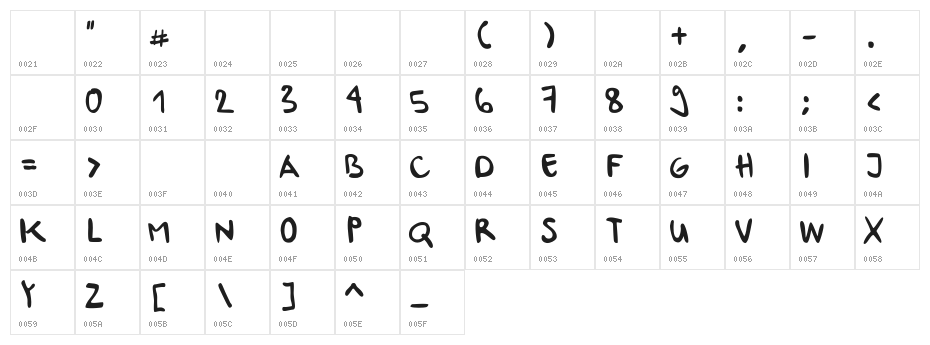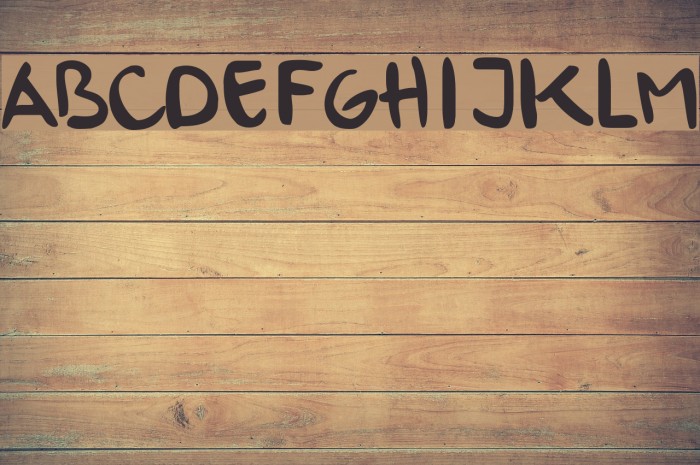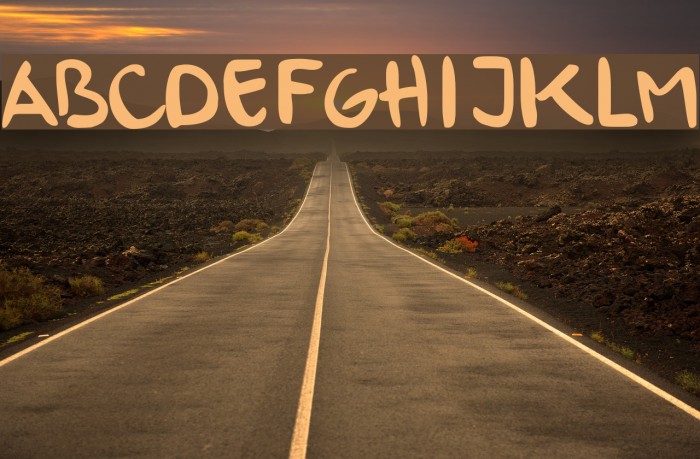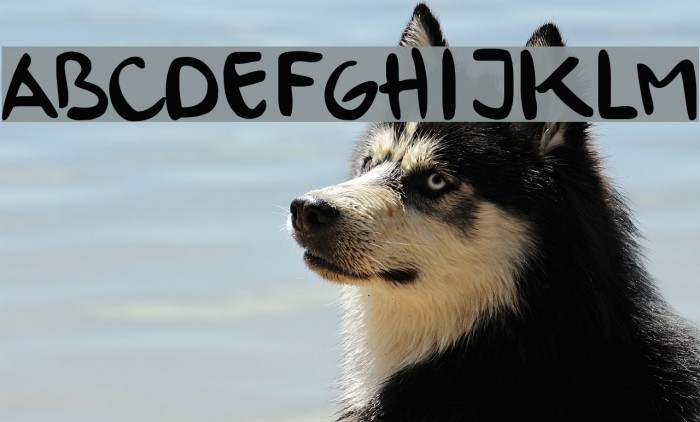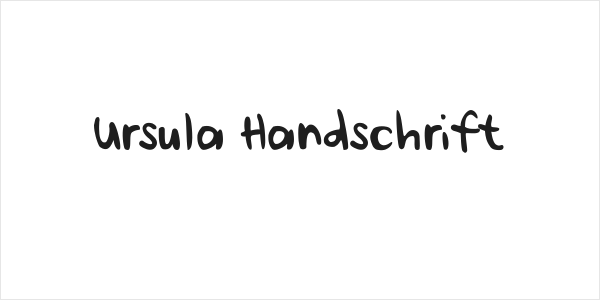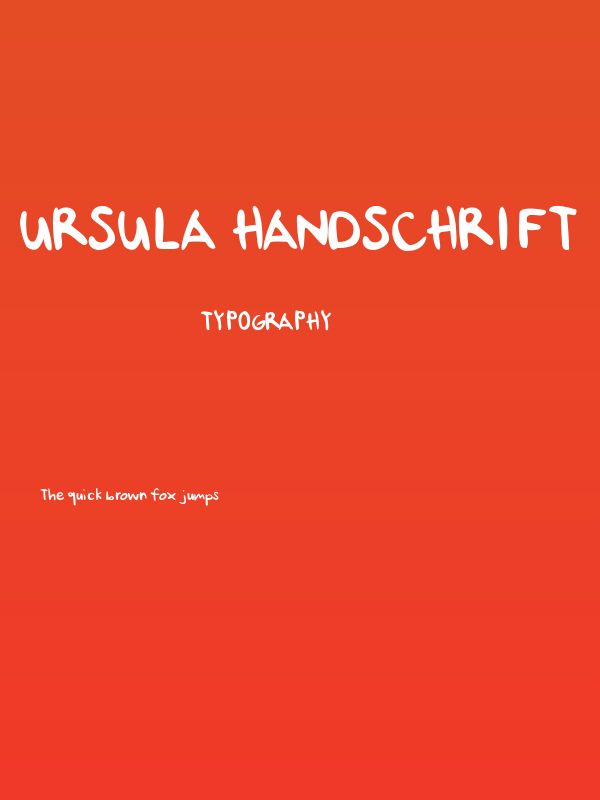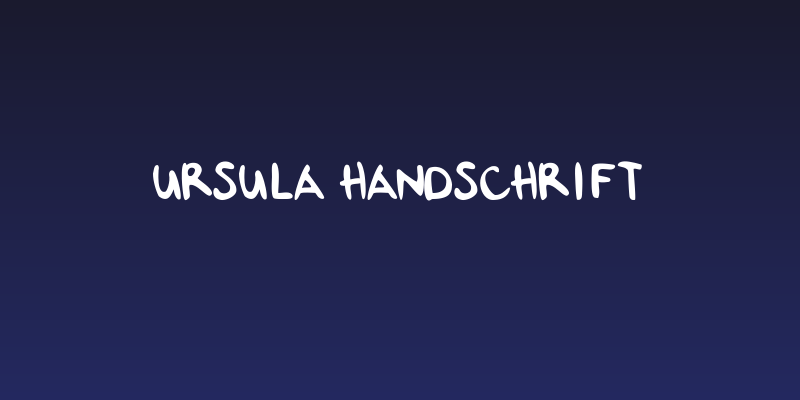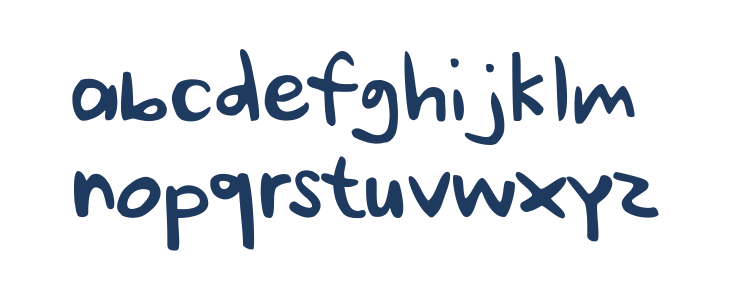
Ursula Handschrift Font
Ursula Handschrift Description
This font exudes a playful and casual handwritten style, characterized by its rounded and slightly irregular letterforms. The strokes are bold and consistent, giving it a friendly and approachable appearance. The uppercase and lowercase letters maintain a uniform height, enhancing readability while preserving the informal vibe. The numerals and special characters are crafted with the same playful touch, making them blend seamlessly with the alphabet. This font's overall aesthetic is reminiscent of personal notes or informal signage, making it ideal for projects that require a human touch.
| Use Case | Headlines, Informal text, Branding |
| Proposed Projects | Ideal for greeting cards, children's books, casual branding, and social media graphics. |